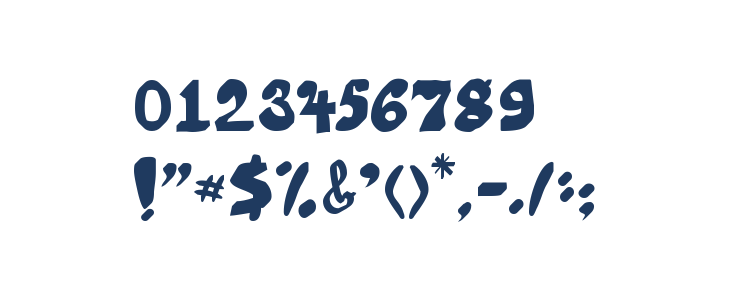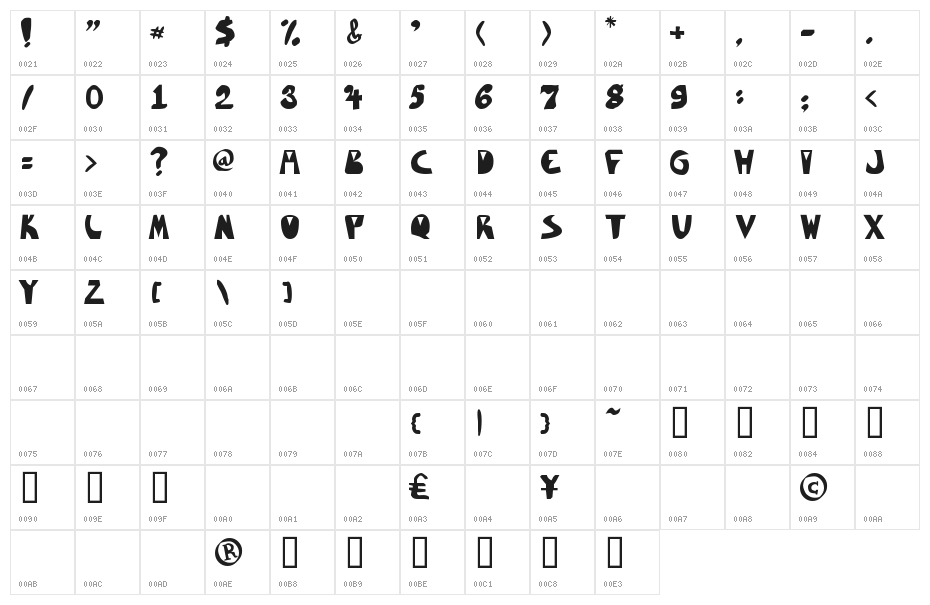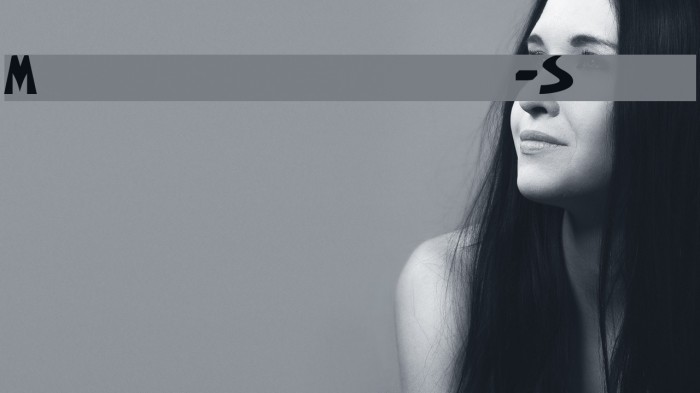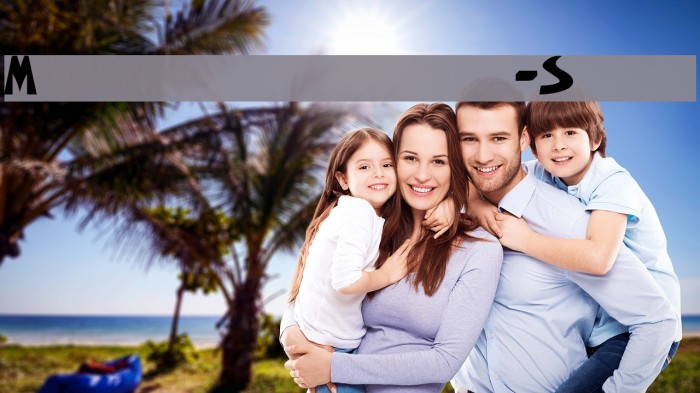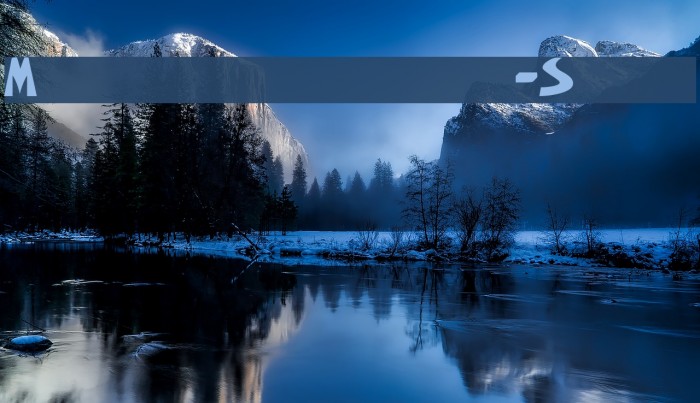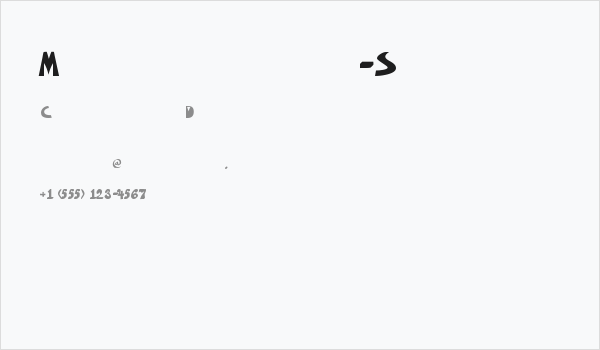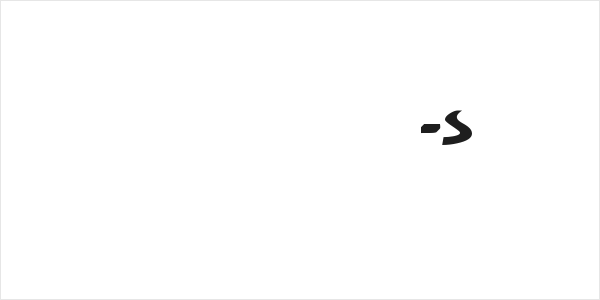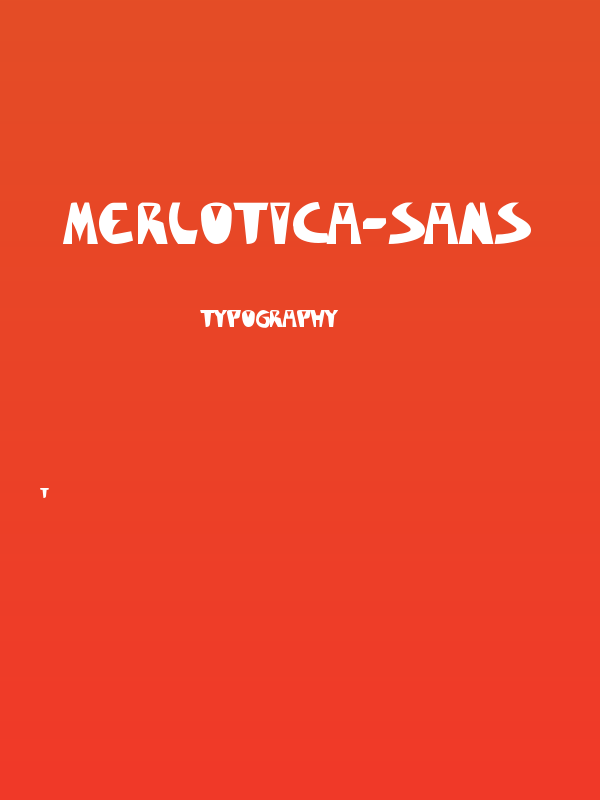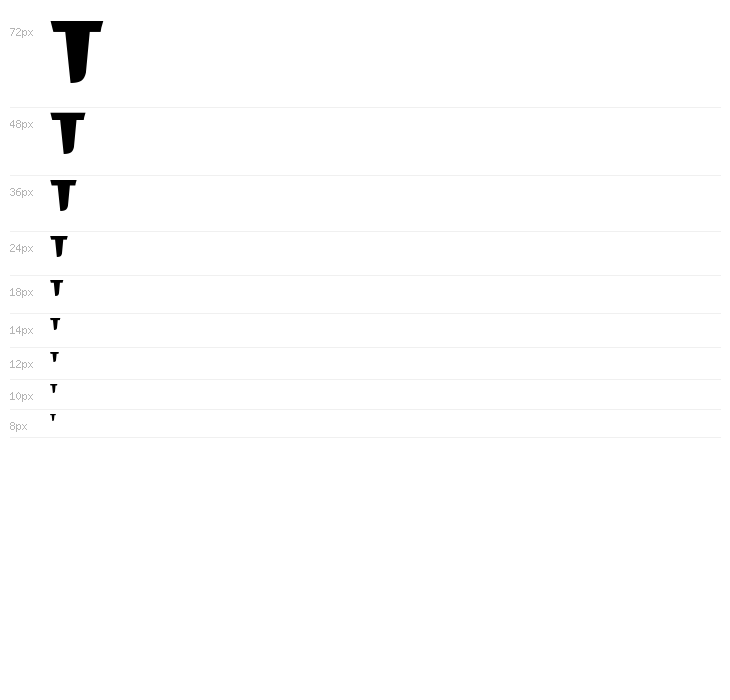
Merlotica-Sans Font
Merlotica-Sans Description
This font features a bold and playful design with a unique, artistic flair. The characters are heavily stylized with exaggerated curves and angles, giving them a dynamic and energetic appearance. The uppercase letters are particularly striking, with a strong presence that commands attention. The numbers and special characters maintain this whimsical style, ensuring consistency throughout. The font's overall look is reminiscent of hand-drawn or graffiti-inspired art, making it ideal for creative and informal applications.